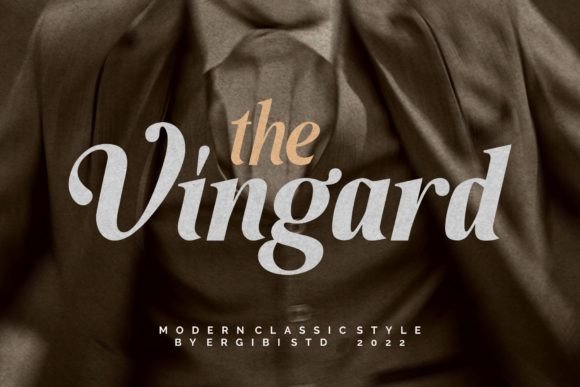
Welcome to the world of Vingard Font, a captivating serif font family that radiates sophistication and elegance in every curve. Step into a realm of visual allure where luxury, fashion, and femininity intertwine to create designs that leave a lasting impression.
Vingard is a masterfully crafted font, born from the creative mind of ergibi studio, renowned for their artistic vision. Each letterform is meticulously designed, exuding charm and grace. The flowing lines and delicate serifs dance across the page, evoking a sense of timeless beauty.
With Vingard, you hold the key to unlocking limitless design possibilities. Whether you seek to enhance your magazine layouts, add a touch of refinement to your branding, or elevate your invitation designs, Vingard is your perfect companion. Its versatility knows no bounds, allowing you to effortlessly create elegant posters, captivating social media graphics, or stunning website designs.
But Vingard is more than just a collection of letters; it's a gateway to an extraordinary typographic experience. Immerse yourself in the world of luxury and femininity, where your designs take on a life of their own. Vingard is your secret weapon, transforming ordinary words into captivating messages that resonate with your audience.
Encoded with PUA, Vingard grants you the freedom to unleash your creativity. Access a treasure trove of glyphs and ligatures with ease, unlocking a world of typographic possibilities. Experiment with stunning letter combinations, create eye-catching headlines, and let your imagination soar.
Step into the world of Vingard Font and witness the transformation of your designs. From ordinary to extraordinary, from mundane to magnificent, Vingard breathes life into your creations, captivating your audience and leaving them in awe. Embrace the elegance, the charm, and the sophistication that only Vingard can deliver.